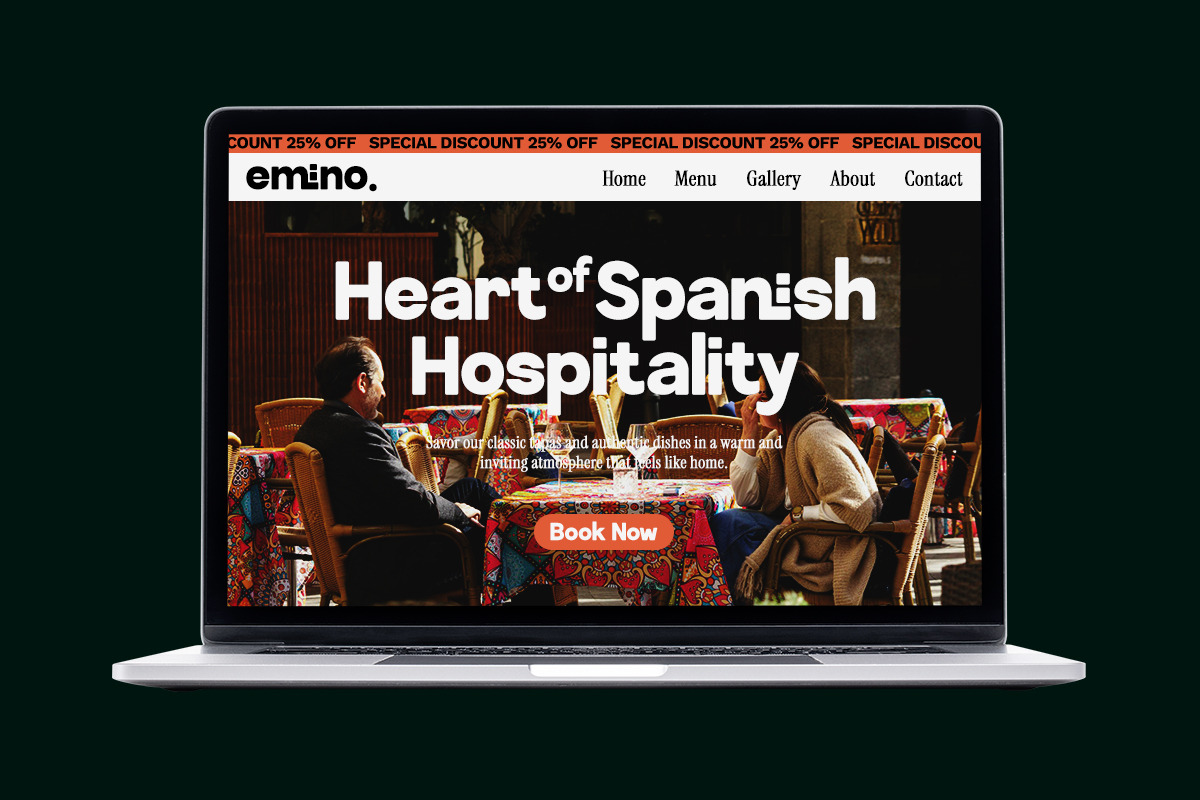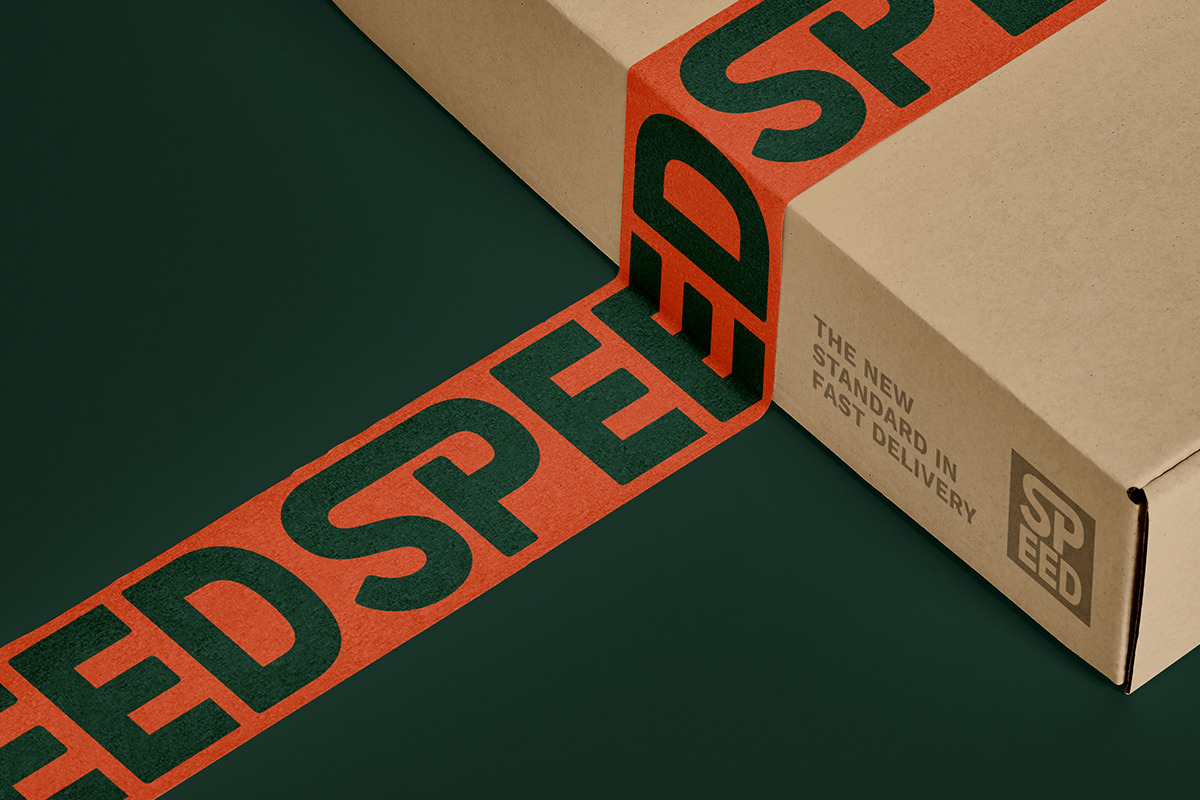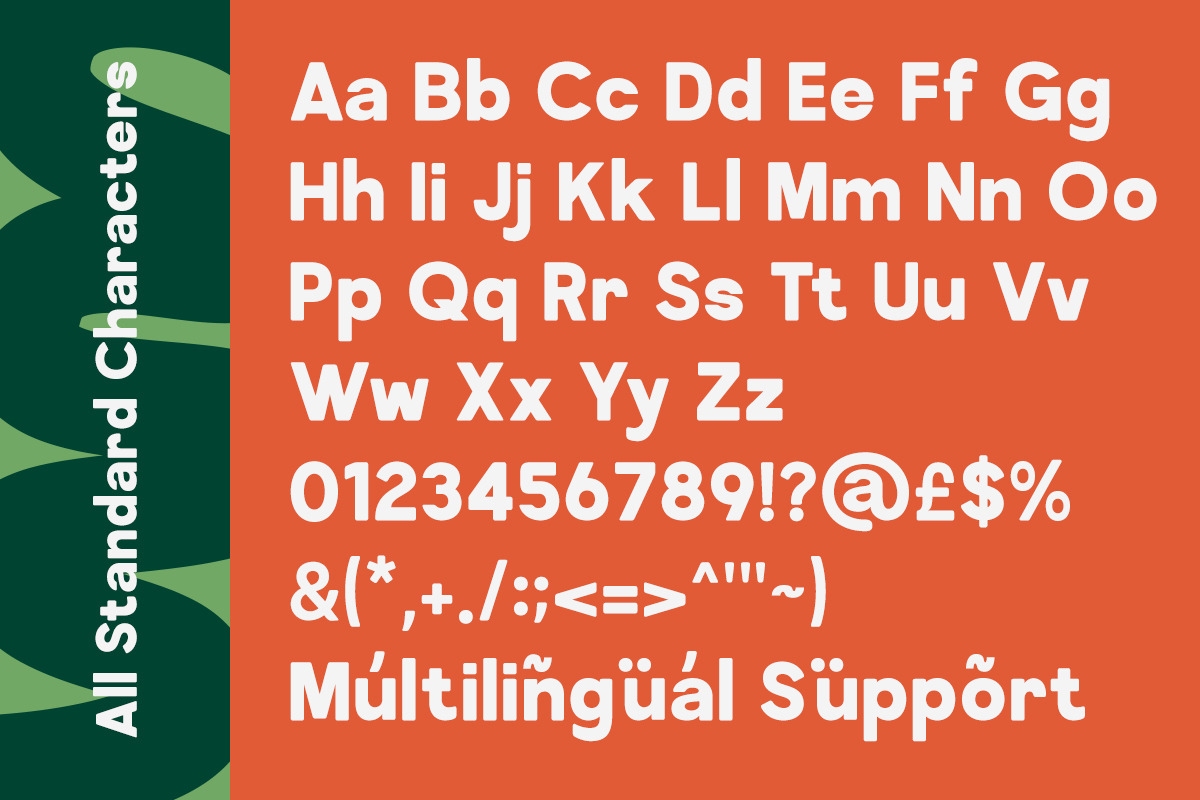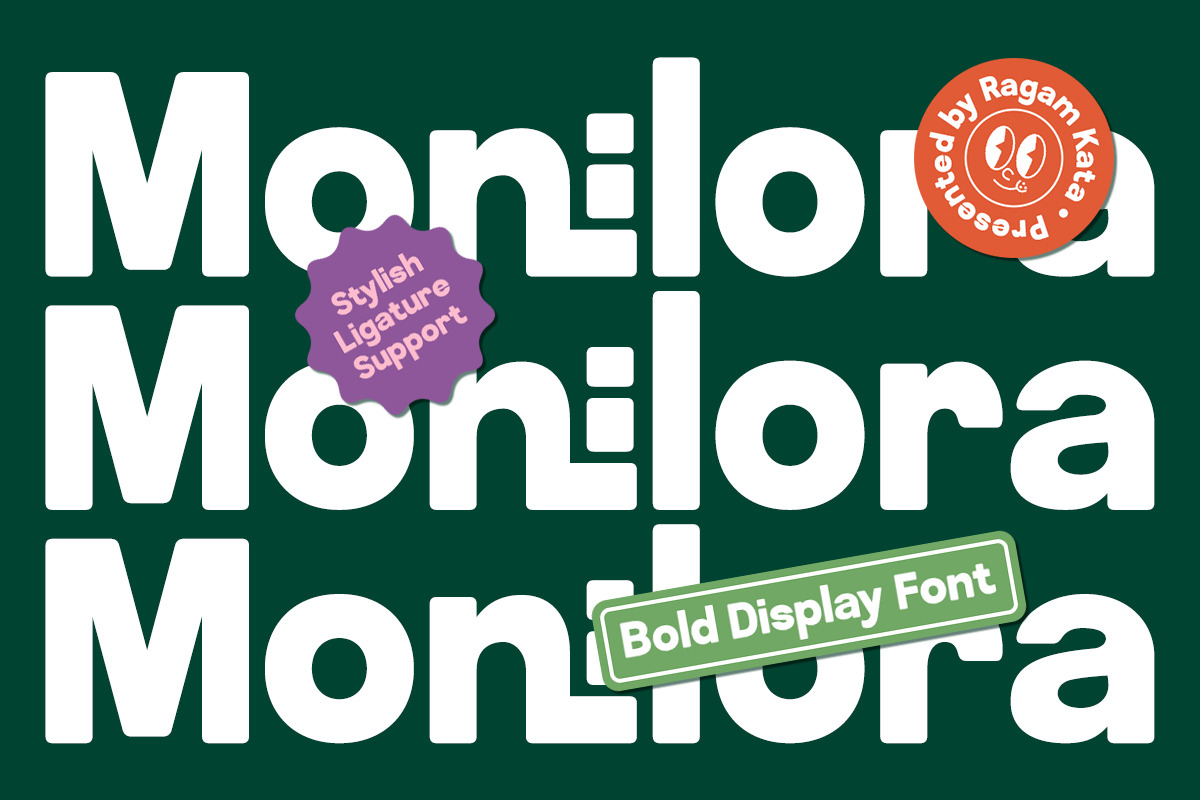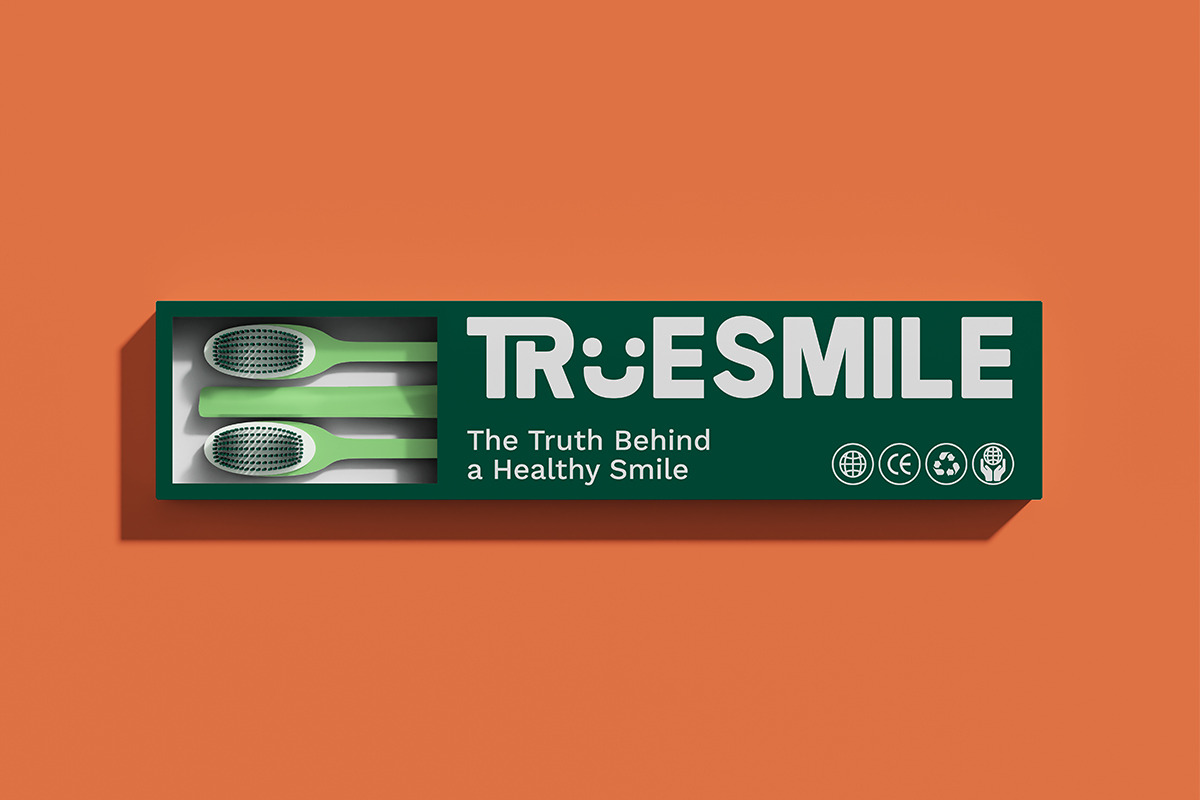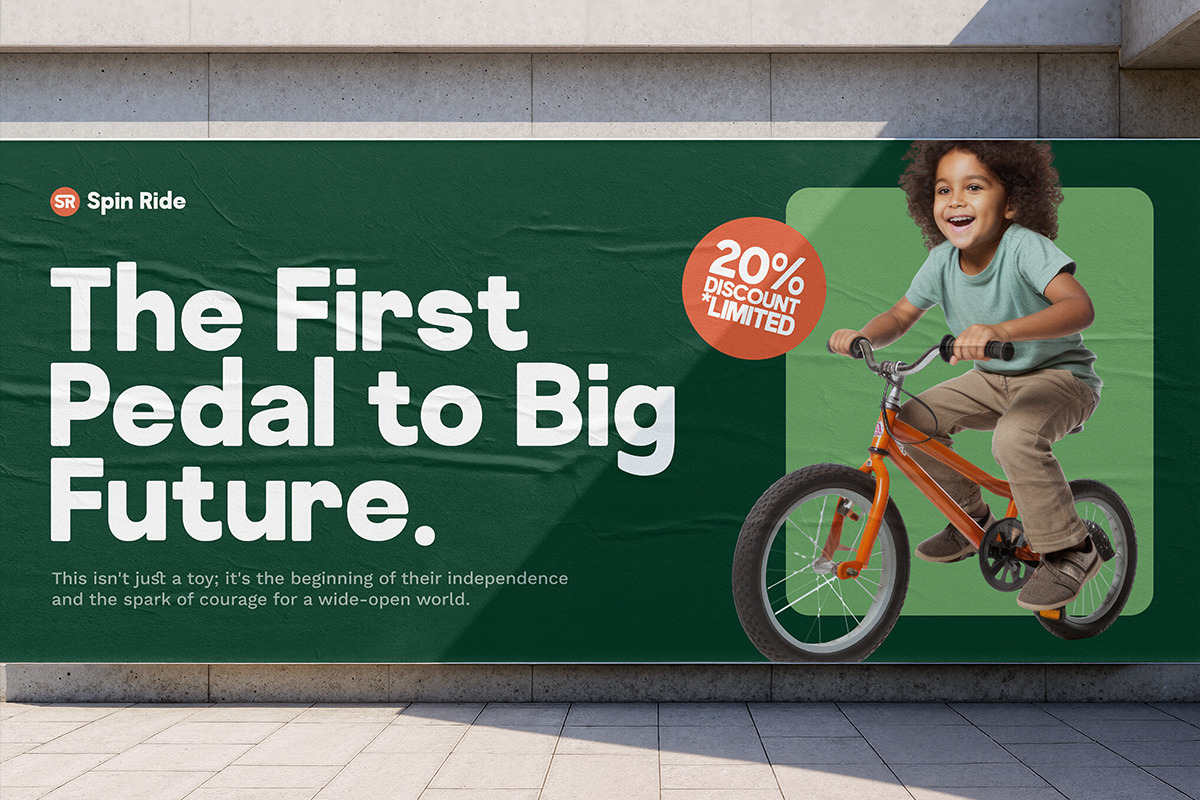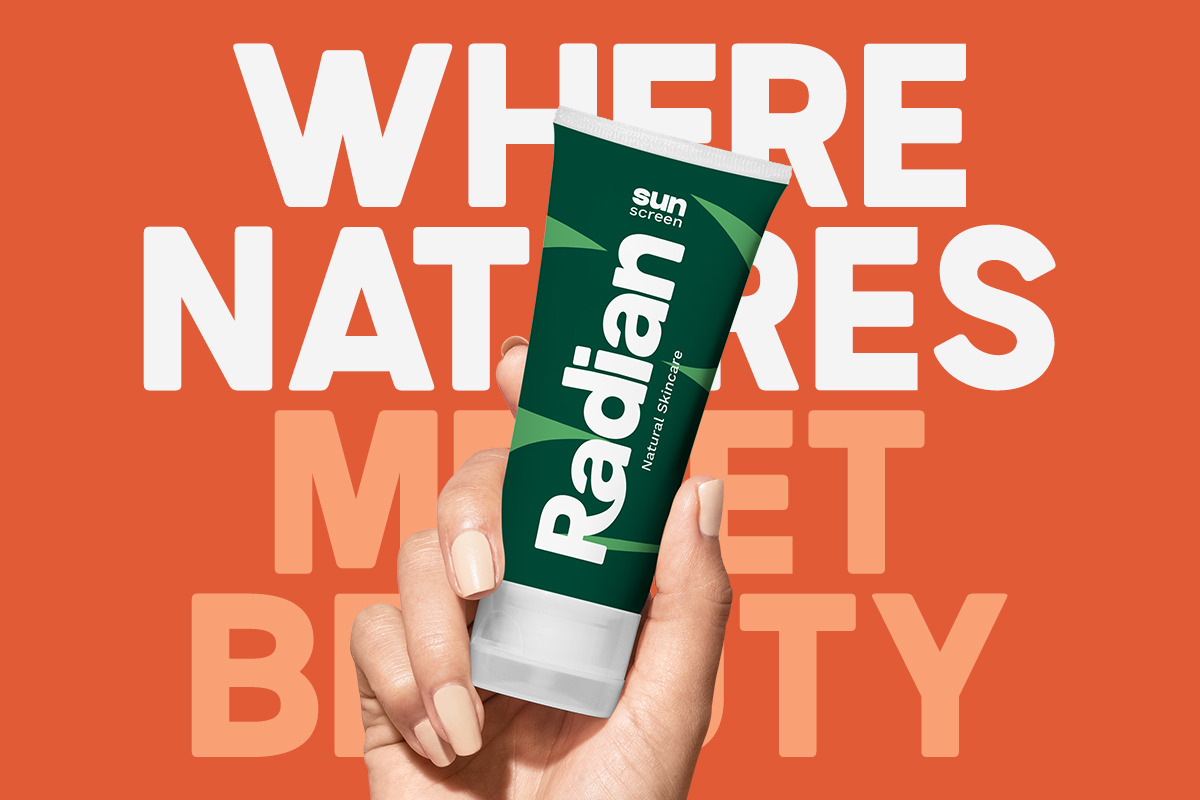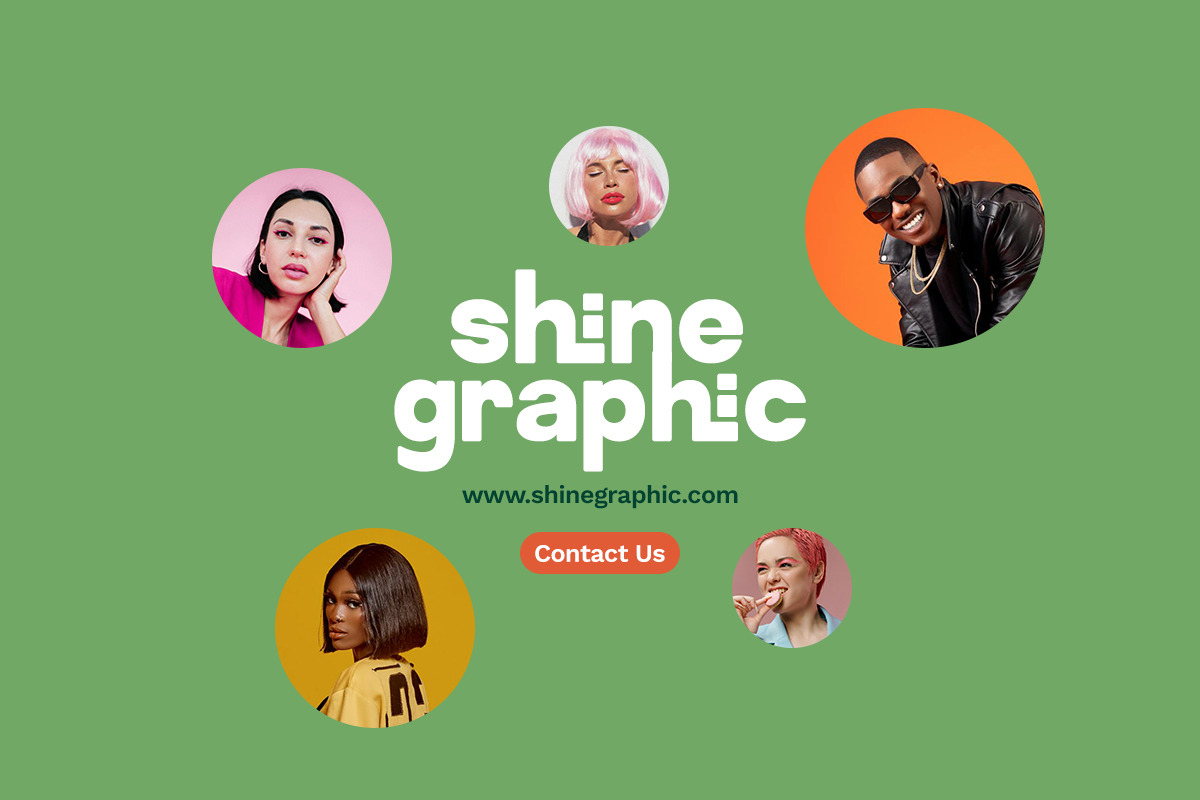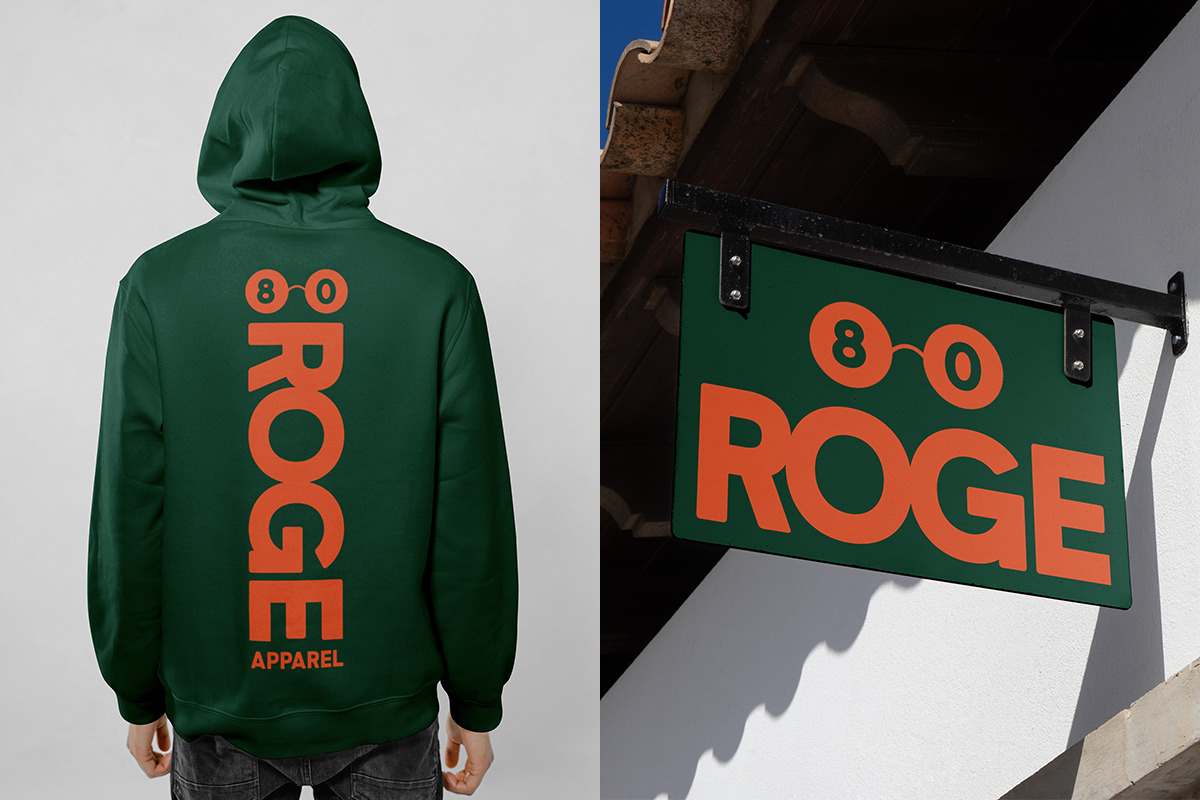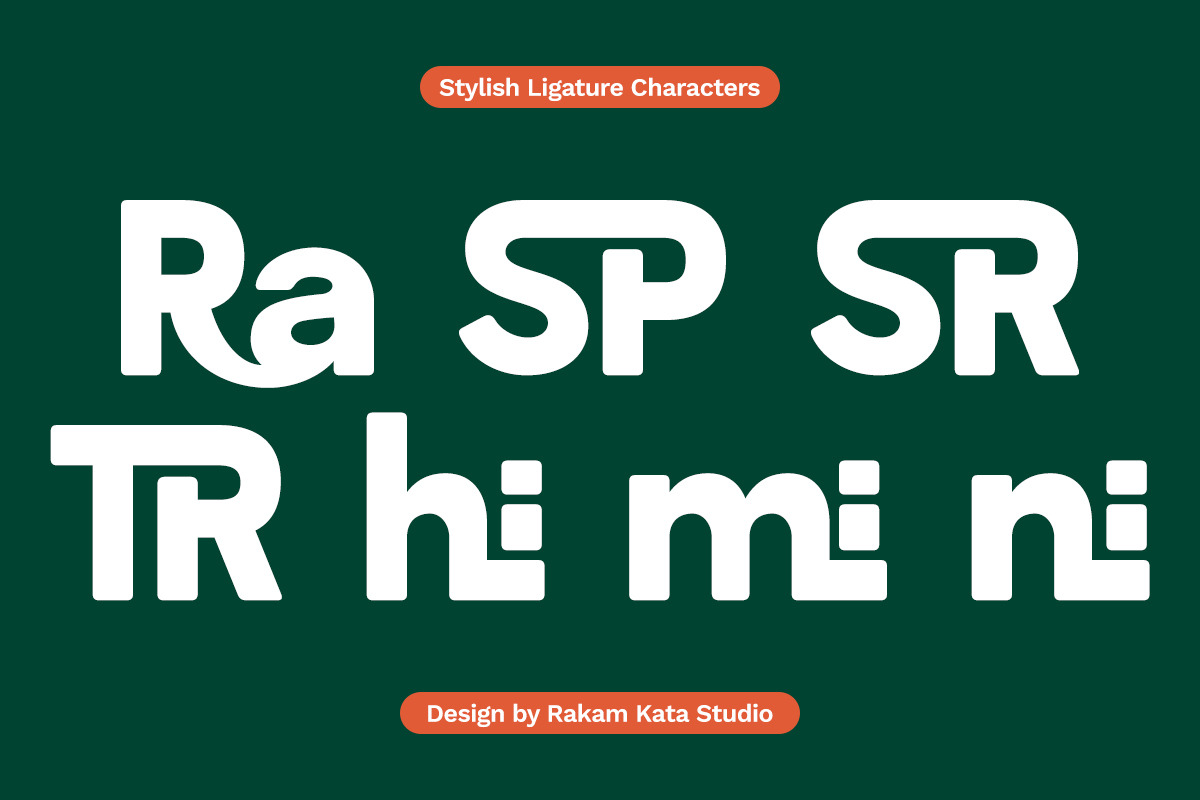
Monilora - Bold Modern Font
Monilora is a bold display font with a modern geometric style and playful personality. Designed to make headlines stand out, Monilora combines clean shapes with strong curves, making it perfect for branding, posters, packaging, and editorial design. Its stylish ligature support adds a unique character to every composition, giving your typography a bold yet friendly look. Ideal for designers seeking a typeface that balances creativity and clarity, Monilora brings energy and confidence to any visual project. File Included : - Monilora Regular (TTF,OTF,WOFF) - Monilora Italic (TTF,OTF,WOFF) - Stylistic Ligatures - Multilingual Support Thanks, Have a wonderful Day Ragamkata Studio